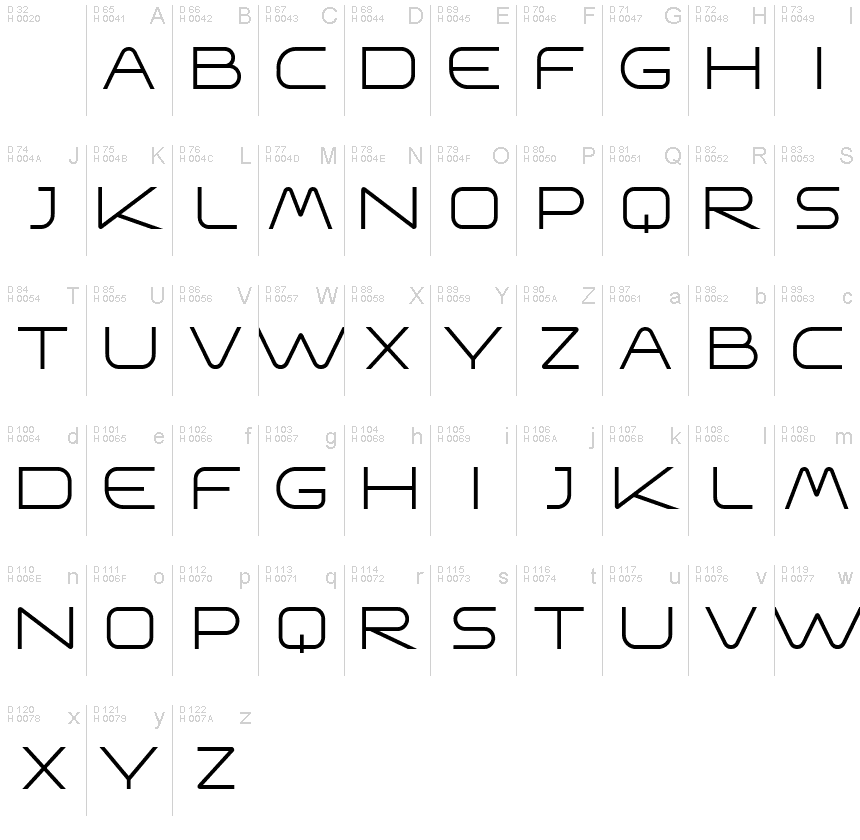
Hacker Regular
Hacker, designed by Vladimir Nikolic, is a distinctive sans serif font that commands attention with its semi-light weight and extra-expanded width. This typeface boasts an aesthetic that balances modernity with a hint of edginess. Its clean-cut lines and generous spacing make it not just legible but also stylistically versatile.
At first glance, Hacker exudes a sharp and contemporary vibe that can easily adapt to various design landscapes. Whether you're crafting the visual identity for a tech startup, laying out the pages of an avant-garde magazine, or setting the scene in dynamic digital media, this font stands out as an excellent choice.
The spacious letterforms of Hacker offer high readability which makes it perfect for both print and screen use. The unique style of this font lends itself well to creative projects aiming for a minimalist yet striking statement. With its distinct character and sleek appeal, Hacker is poised to elevate any project it graces.